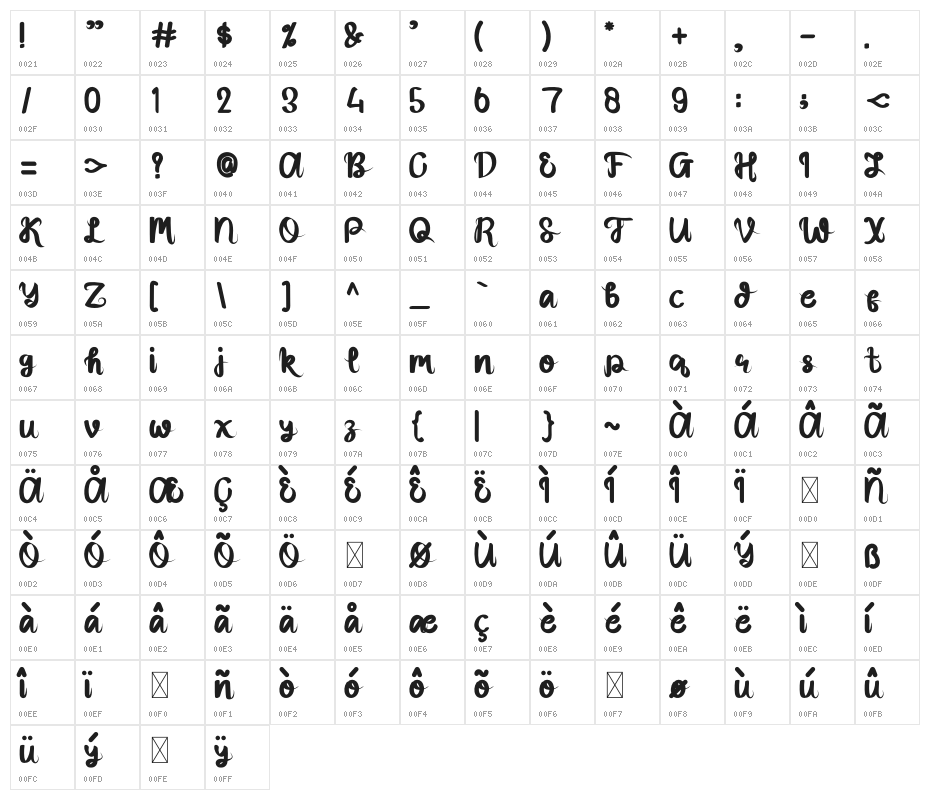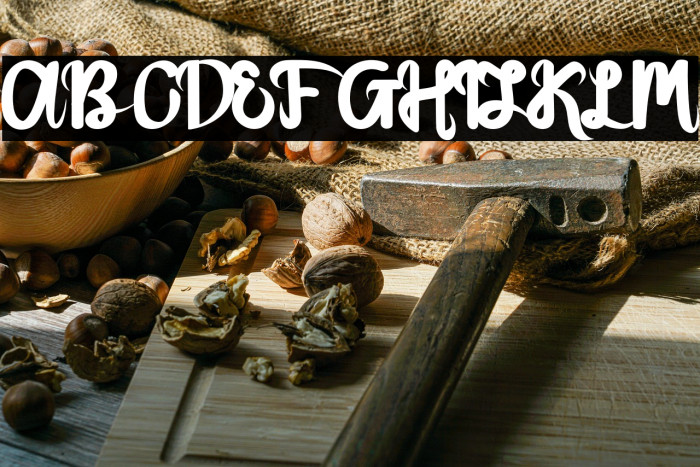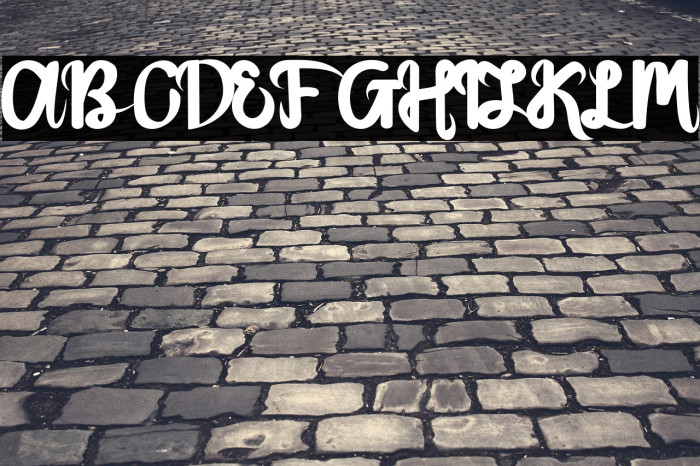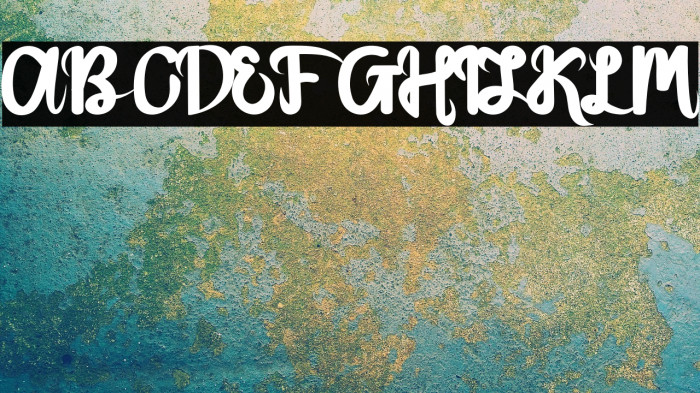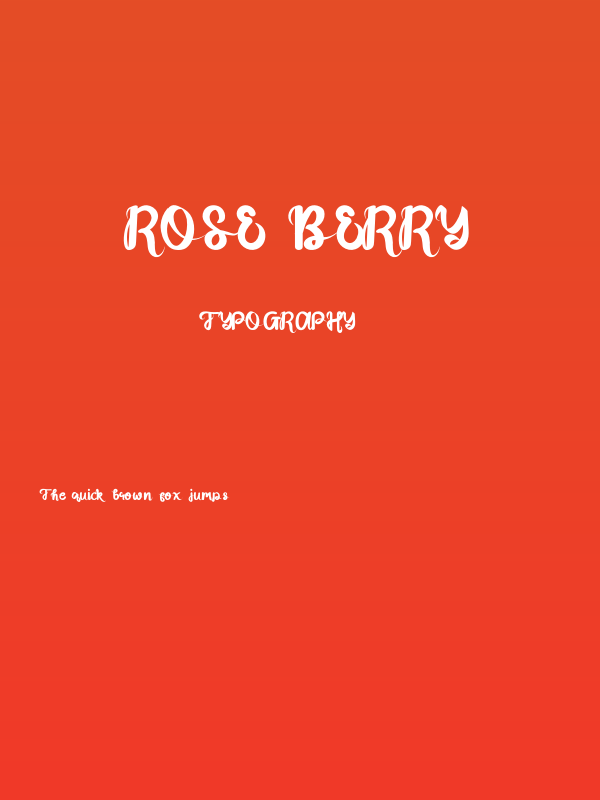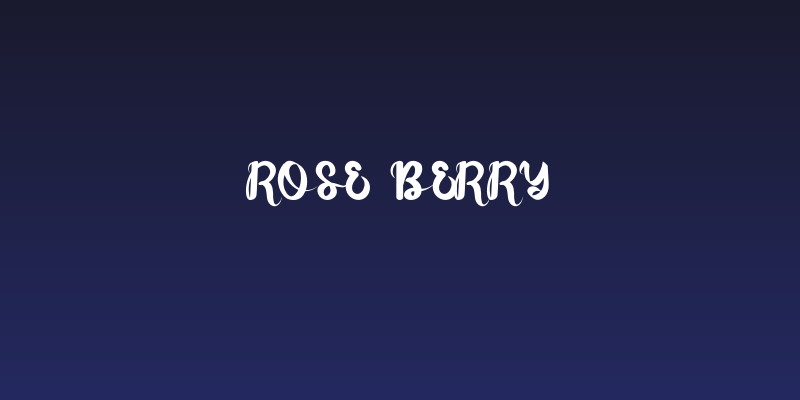
Rose Berry Font
Rose Berry Description
This font features a bold, playful script style with a handwritten feel. The characters are connected with smooth, flowing lines, giving it a whimsical and artistic appearance. The uppercase letters are ornate and decorative, while the lowercase letters maintain a consistent, rounded form. The numbers and special characters follow the same playful design, making the font cohesive and versatile. Its thick strokes and high contrast make it stand out, perfect for eye-catching designs.
| Use Case | Logos, Headlines, Invitations |
| Proposed Projects | Ideal for greeting cards, invitations, logos, and playful branding projects. |